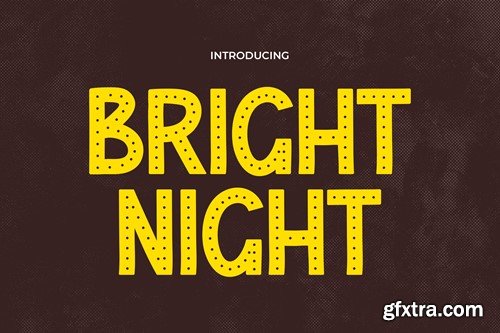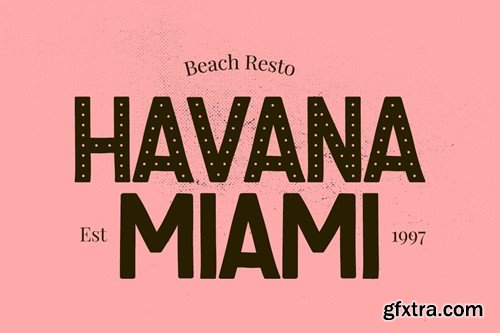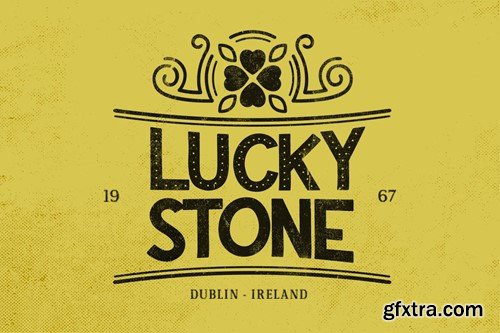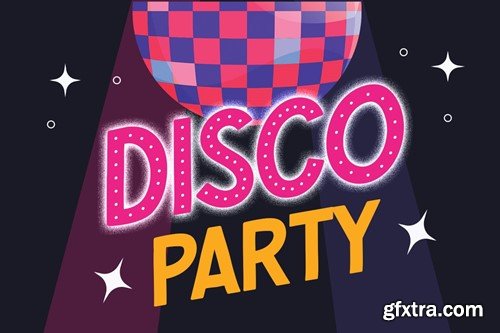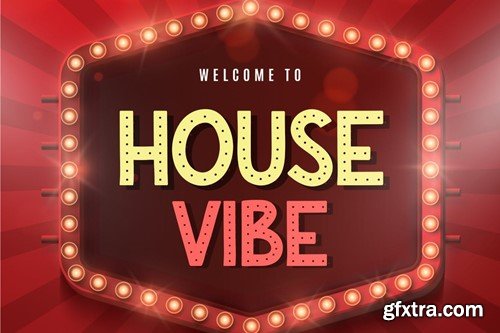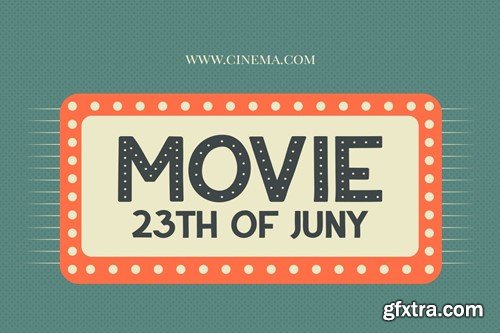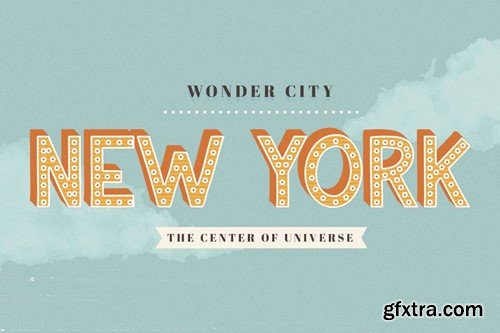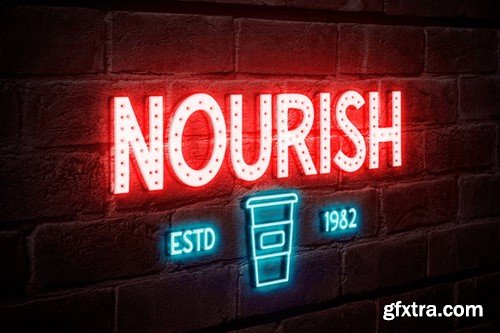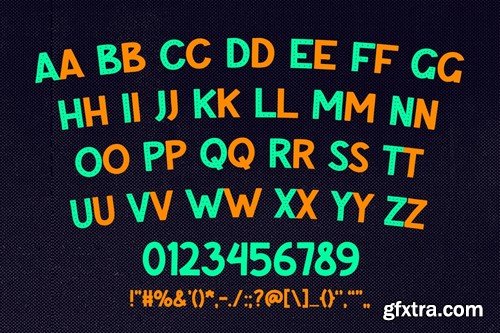
明亮夜晚 - 一款复古迪斯科 vintage 字体
Bright Night is a font that embodies the lively spirit of retro design, infused with the vibrant essence of vintage disco and entertainment. This font is a captivating blend of nostalgia and energy, making it perfect for projects that demand a touch of fun and excitement. For logos, Bright Night brings a dynamic and eye-catching style, setting brands apart with its unique disco-era flair. The font's vintage charm is ideal for crafting memorable quotes, adding a sense of rhythm and liveliness that resonates with the audience. In invitations, Bright Night sets the stage for fun-filled events, creating an atmosphere of anticipation and joy. When applied to posters and greetings, it delivers messages with an engaging and upbeat vibe, capturing the essence of entertainment and good times. In the realms of packaging and branding, Bright Night offers a distinctive identity, perfect for products and brands aiming to convey a sense of fun and retro style. For book covers, event promotions, headlines, and advertising, Bright Night ensures your message stands out with its lively disco-inspired design, engaging viewers with its vintage charm and entertaining spirit.